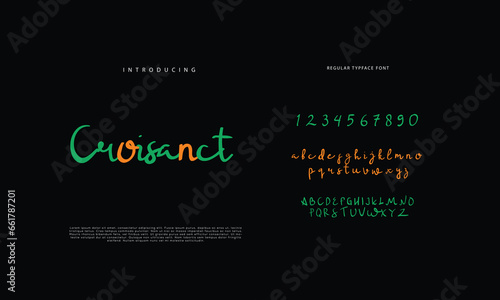
Handwritten Script font. Hand drawn brush style modern calligraphy cursive typeface. Hand Lettering and Custom Typography alphabet for Designs: Logo, Greeting Cards, Poster. Vector Brush type set.